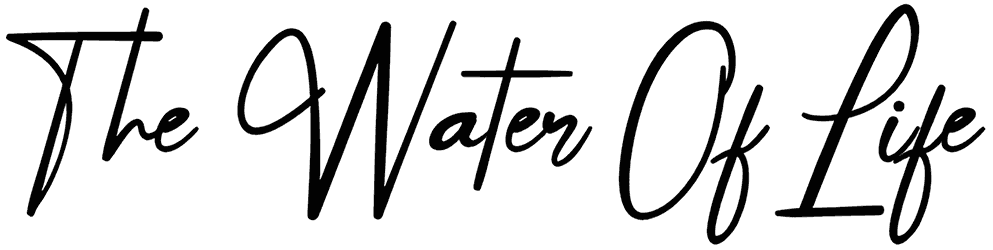
The Water Of Life Font
The Water Of Life is a timeless handwritten font that is masterfully crafted for exclusive missions such as designing high-end branding projects, logos, flyers, or wedding invitations. The characters of this script font have a cursive style and sophisticated flow, thus it can add a vibe of personalization, professionalism, and trustworthiness to all of your visual content.